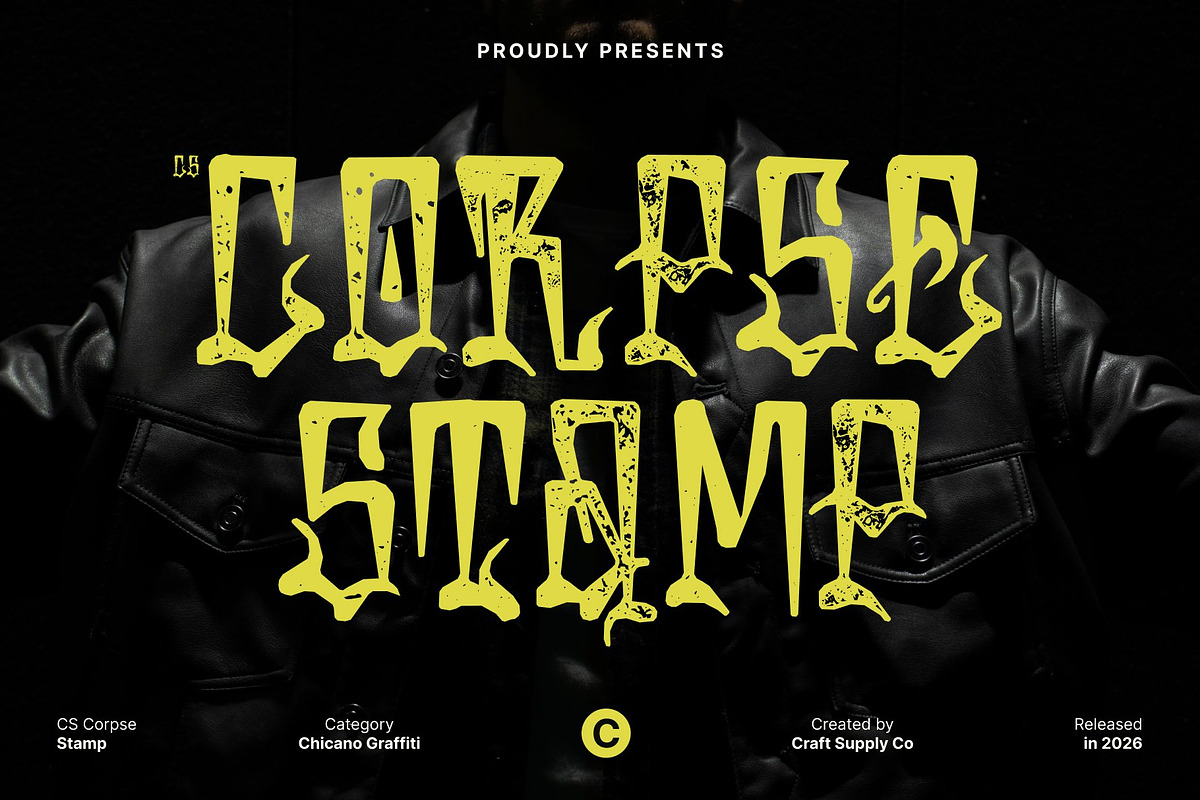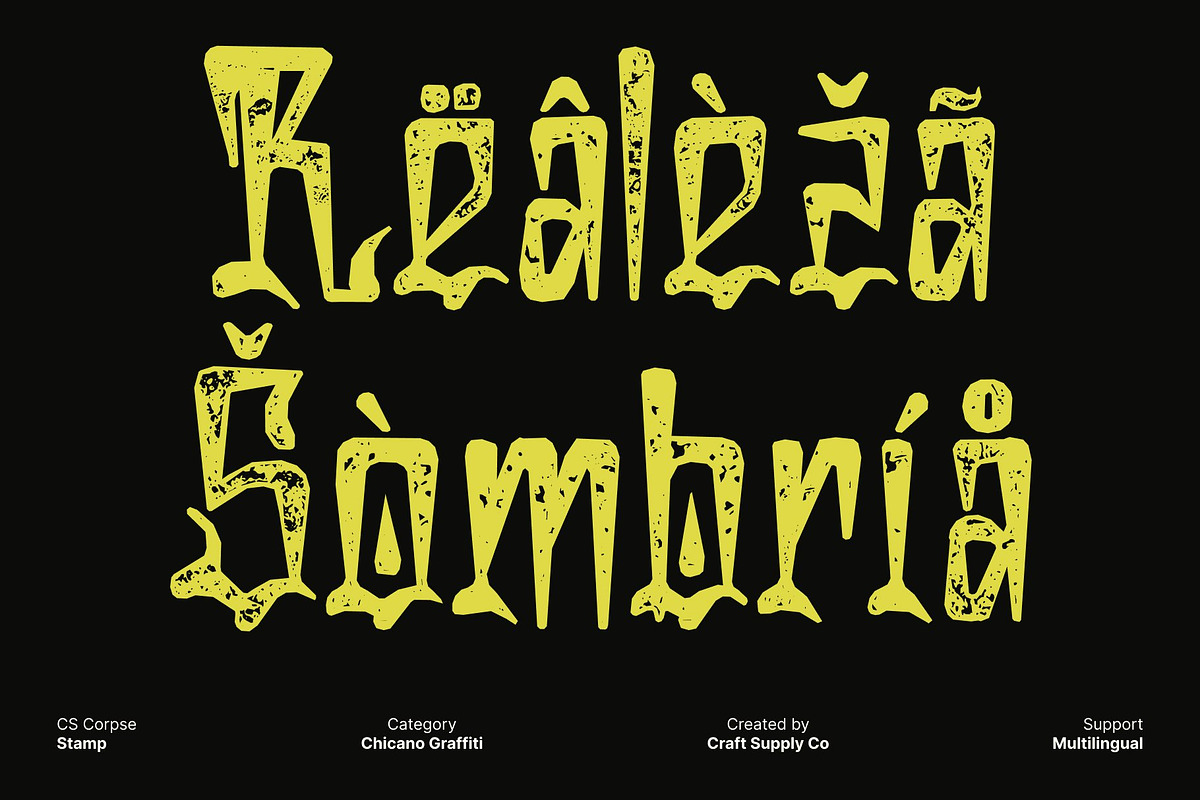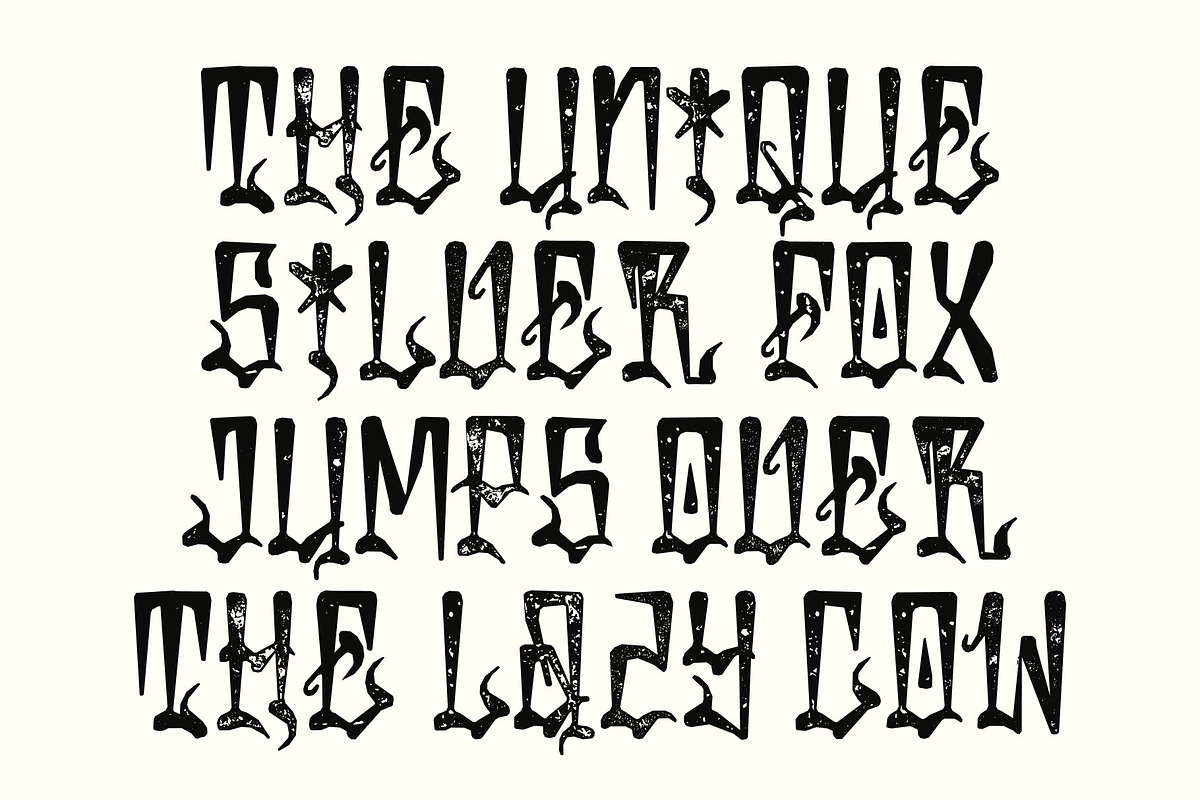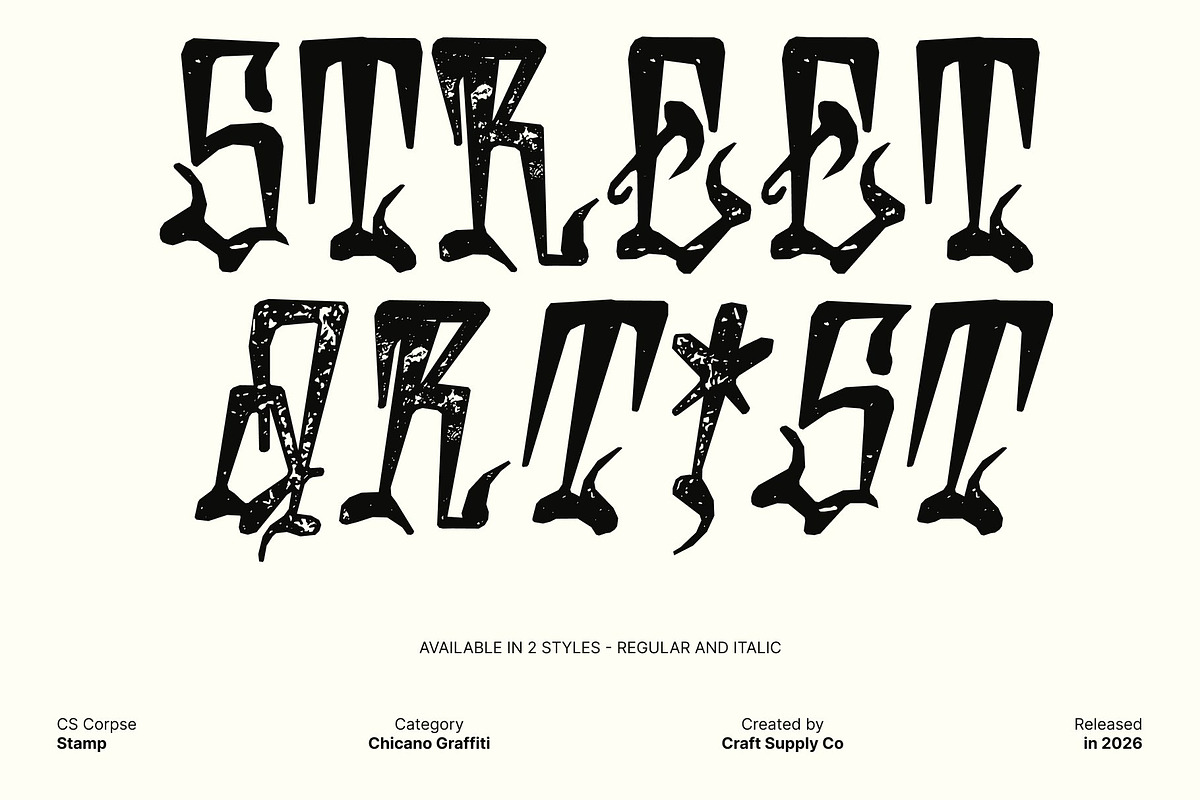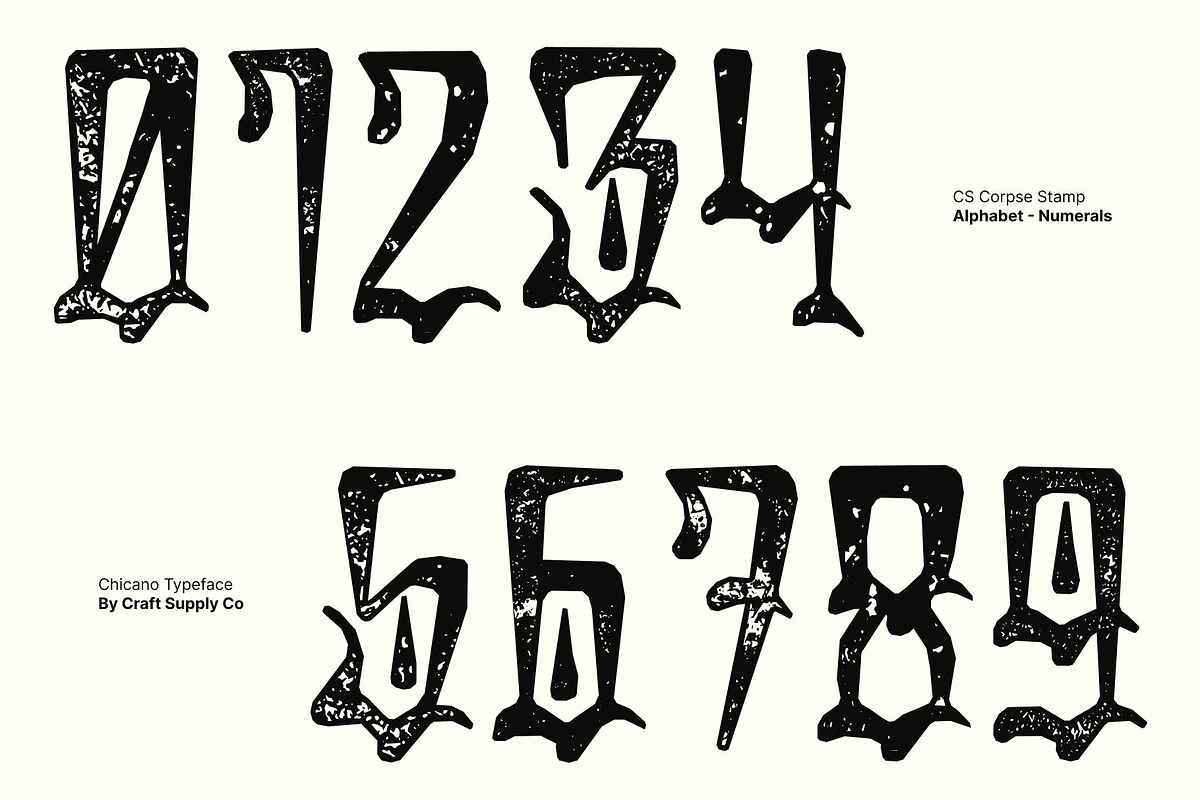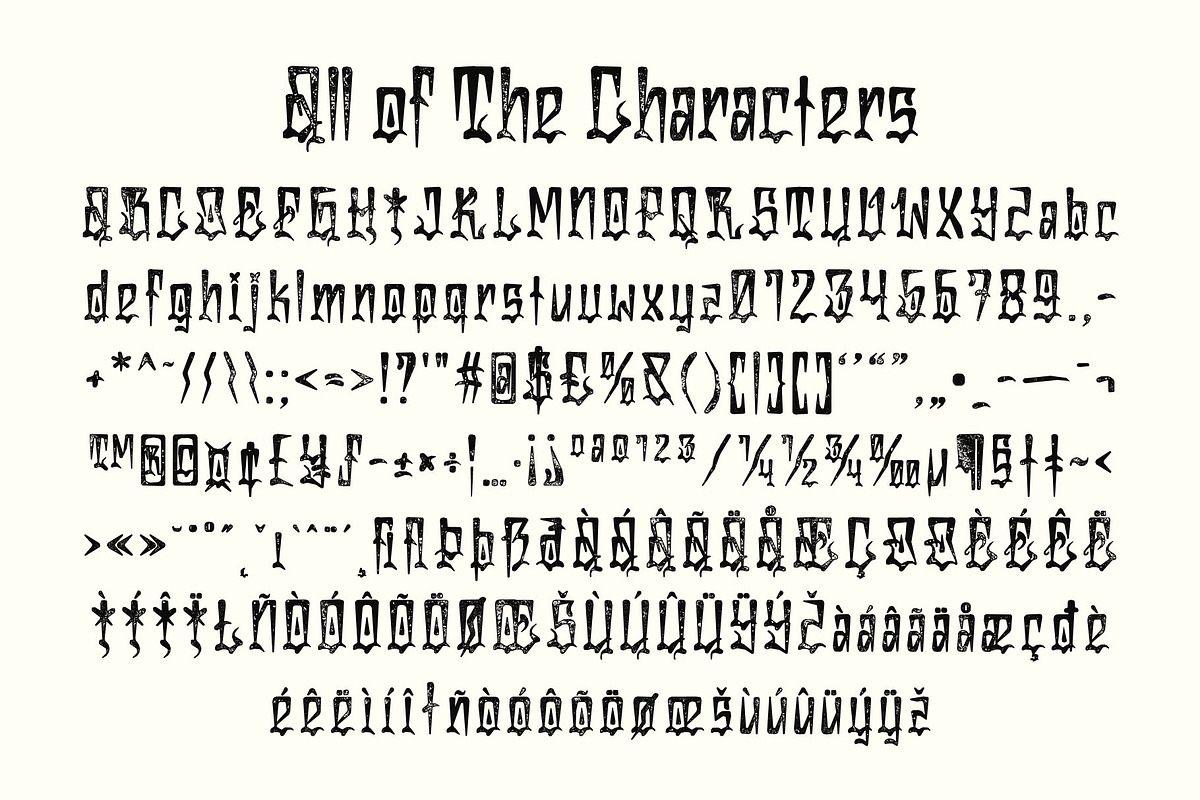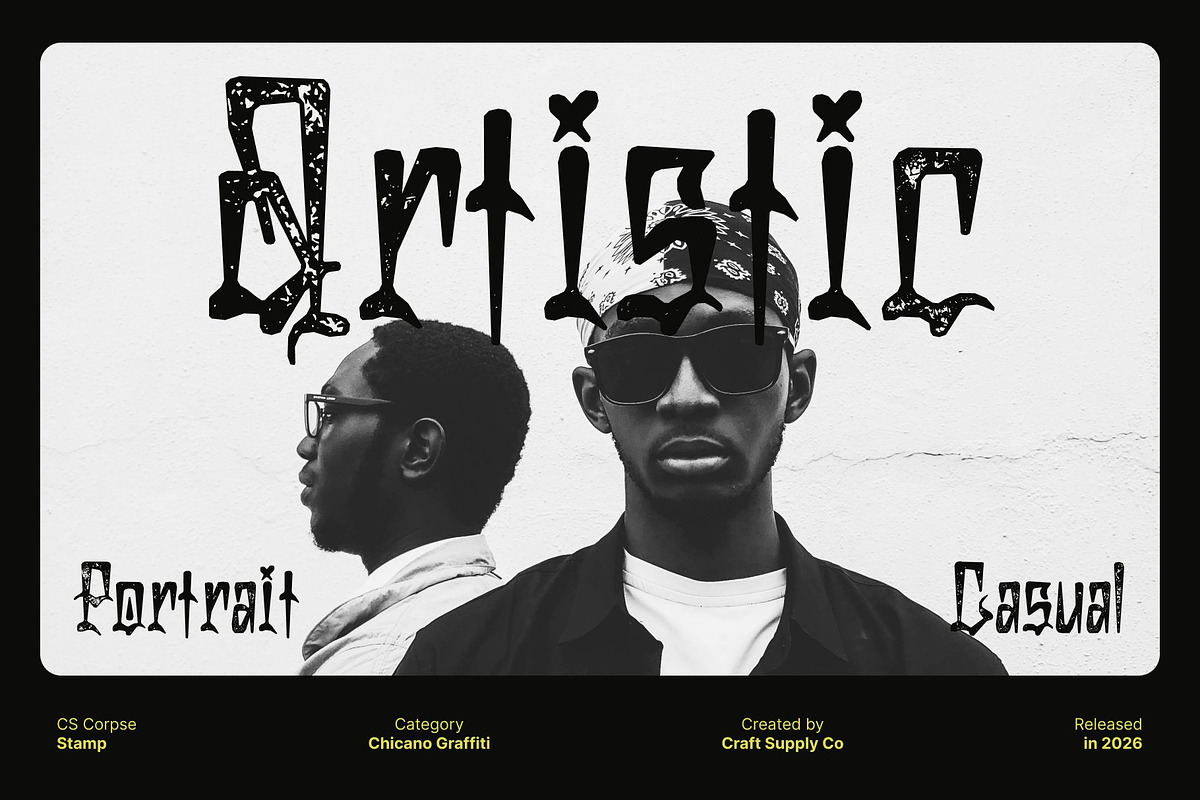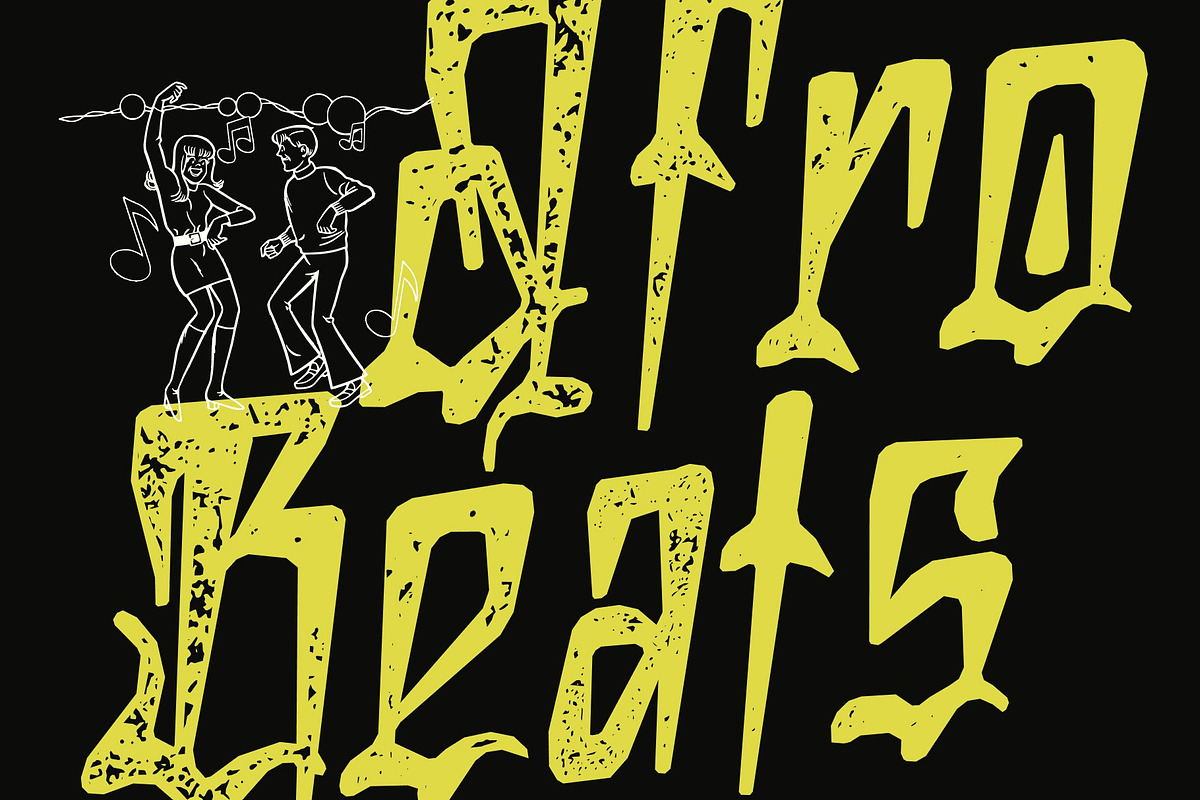
CS Corpse Stamp
CS Corpse Stamp – Urban Graffiti Energy with Vintage Texture
Chicano Graffiti Display Font with Bold Expression This is a striking display font inspired by Chicano graffiti culture, blending bold strokes, dynamic curves, and expressive lettering. Its strong, flowing forms capture the raw energy of street art, making every word feel alive with movement and attitude. Enhanced with a stamp effect, the font gains a textured, slightly distressed finish that adds a gritty, authentic print feel.
Street Art Aesthetic with Textured Depth Each letterform reflects the spirit of urban creativity free, unconventional, and full of personality. The stamp texture introduces ink-like imperfections and worn edges, amplifying the handcrafted and underground vibe reminiscent of posters, murals, and street prints.
Bold Visual Impact with Cultural Expression This font is designed to stand out. Its vibrant, graffiti-inspired style communicates individuality, rebellion, and artistic freedom. The textured finish adds depth and realism, making it feel both expressive and grounded in authentic urban culture.
Perfect for Music, Events, and Urban Branding Ideal for music posters, event flyers, streetwear branding, album covers, and creative campaigns, this font delivers a powerful and memorable visual identity. Its fusion of graffiti artistry and vintage stamp texture creates typography that is bold, cultural, and unapologetically expressive.